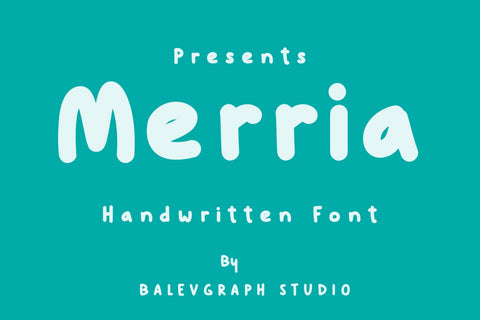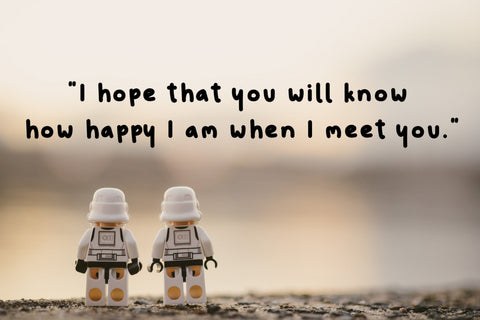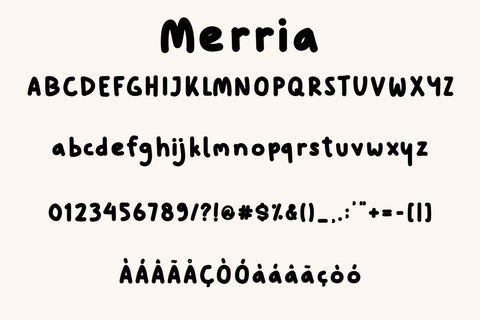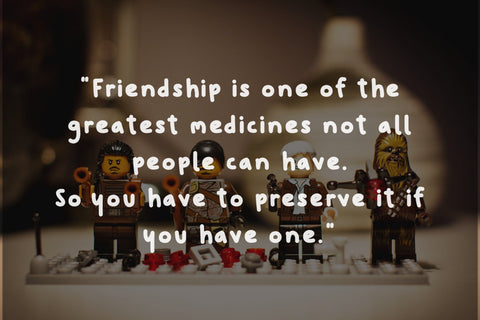
Merria Kids Typeface
Merria is a cute and unique font with a sense of children's joy.
- Ton of glyphs (include Uppercase, Lowercase, Numerals & Punctuations, Multilingual)